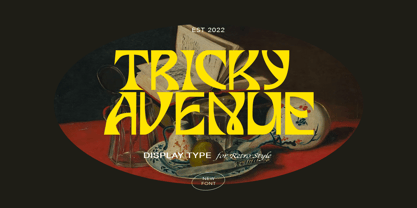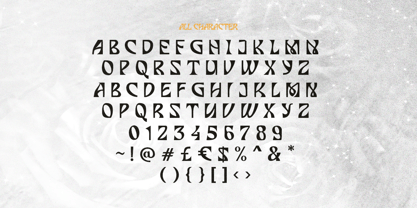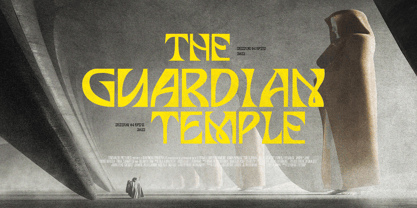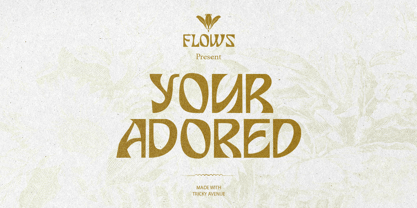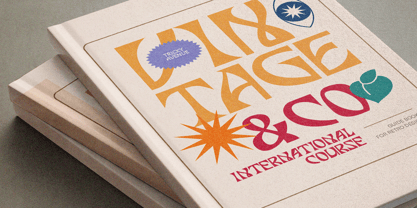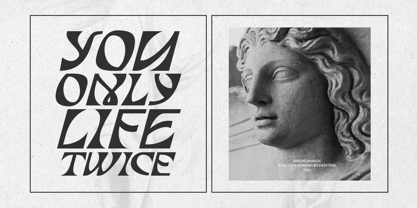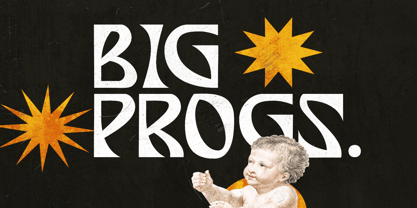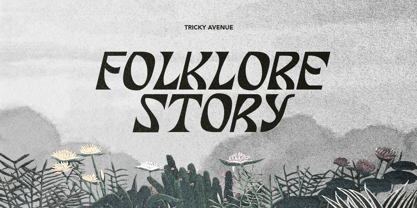
Tricky Avenue
by Bale Type
The Tricky Avenue Font Family was designed by Sarid Ezra, Dzikrul Aulia and published by Bale Type. Tricky Avenue contains 2 styles and family package options. More about this family
Tricky Avenue is a display font that you can use for project that require contemporary and modern looks. With unique and uncommon shape, this font will make your design more appealing and stunning. This font is suitable for big and bold poster. Tricky Avenue also support multi language.
Designers: Sarid Ezra, Dzikrul Aulia
Foundry: Bale Type